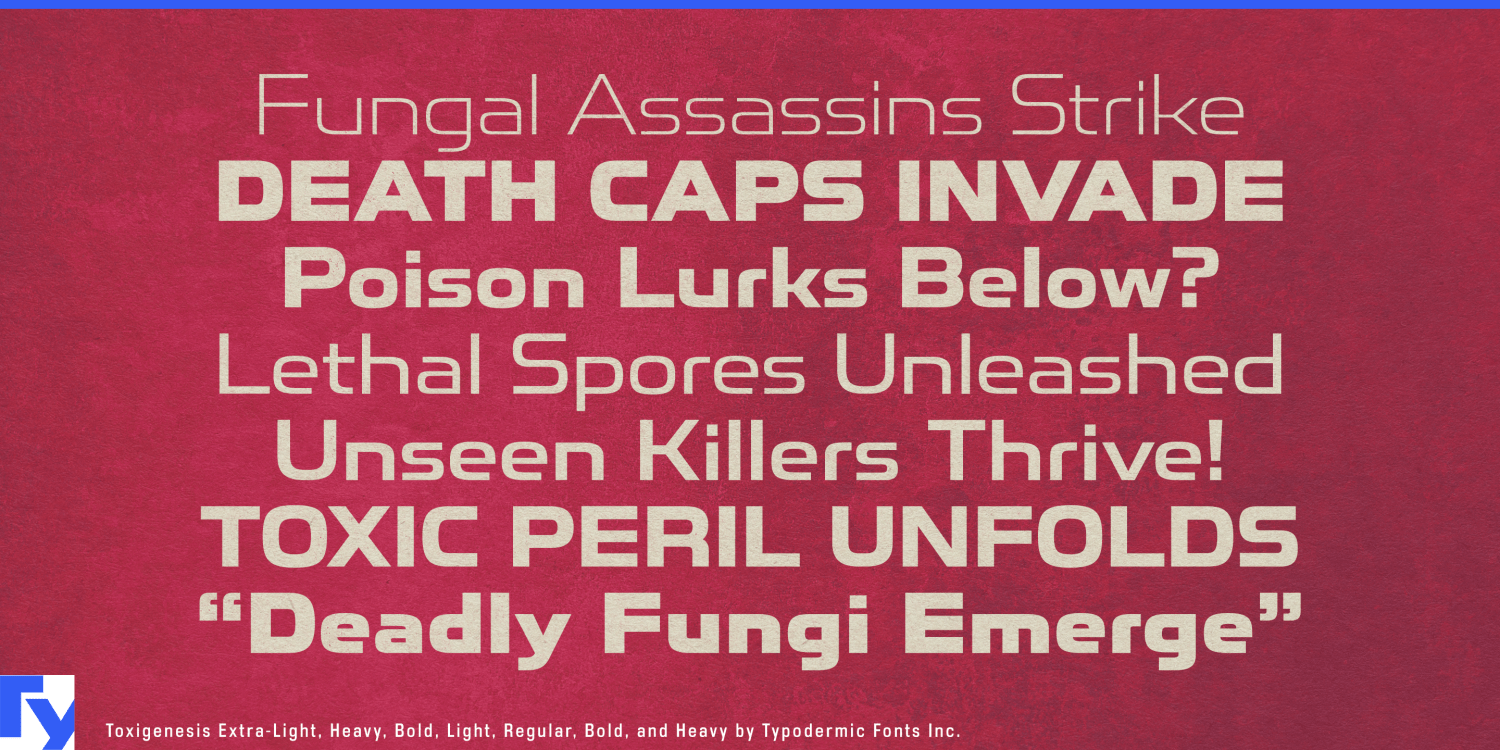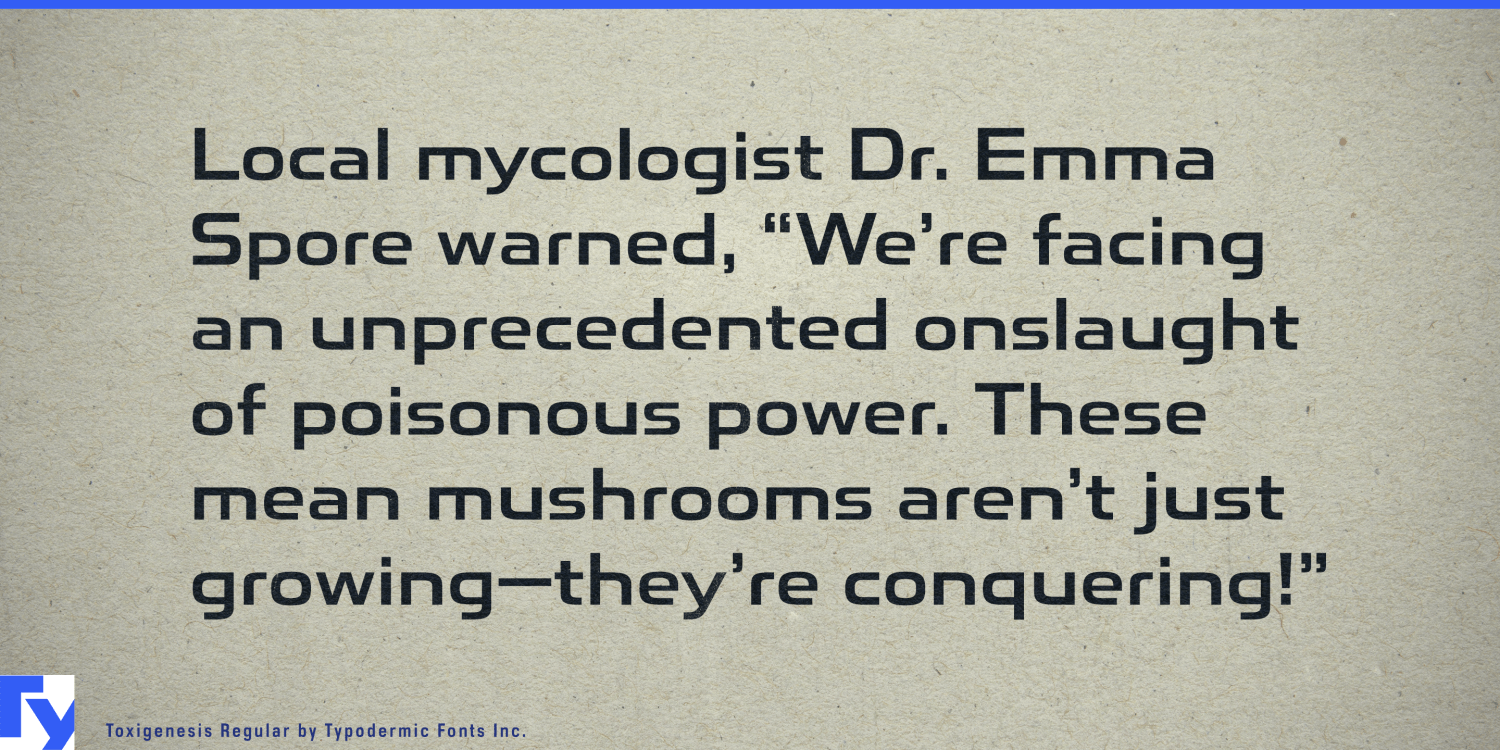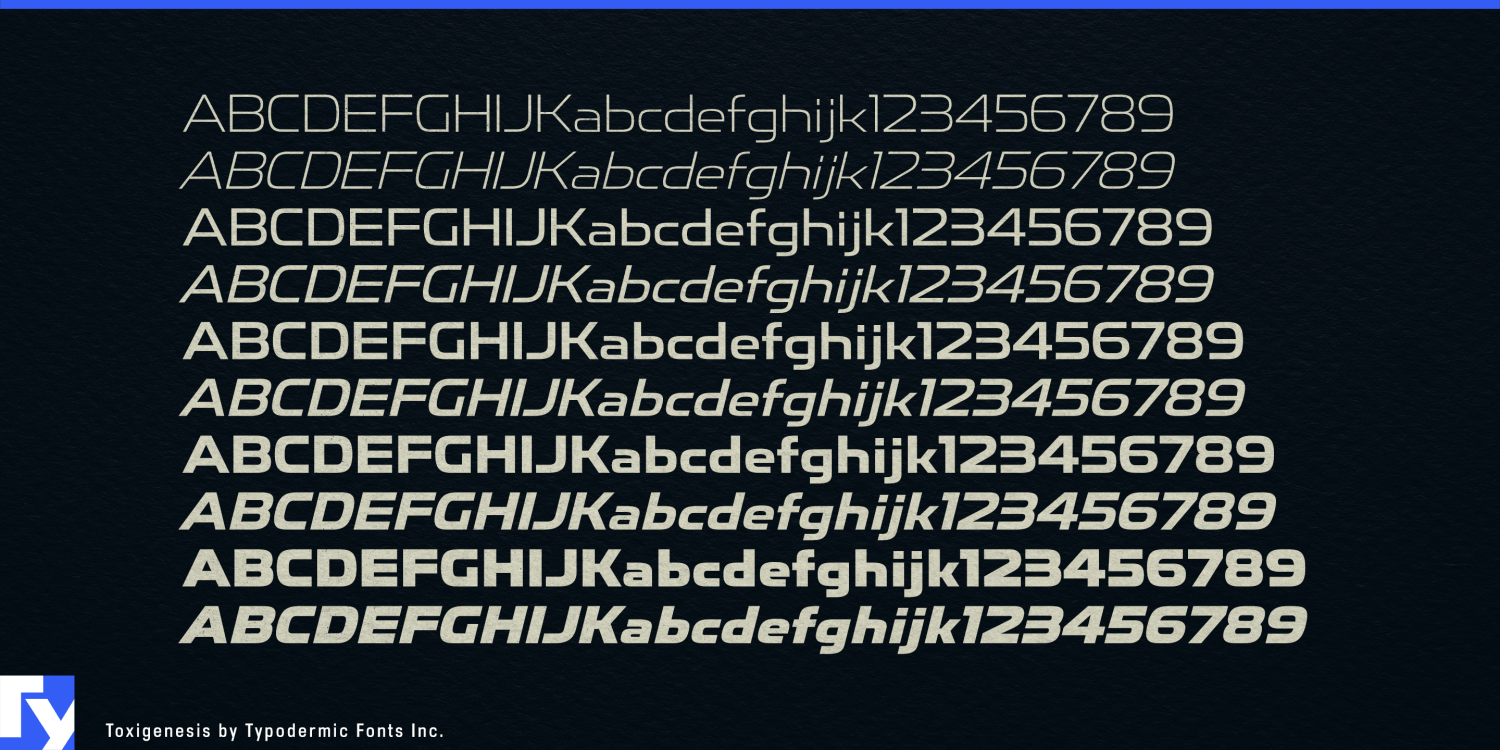
About Toxigenesis
Toxigenesis—a typeface that grows on you with the subtle allure of a deadly mushroom. Inspired by the sleek lines of consumer electronics and the bold curves of automotive design, this font family exudes a captivating blend of scientific precision…